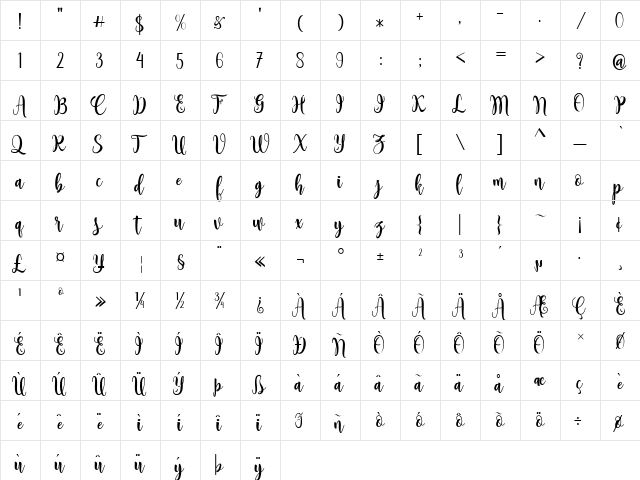
Sambilan Regular
Design Context for Sambilan Typeface
Sambilan is a composed and adaptable typeface that performs quietly and consistently across a wide range of design contexts.